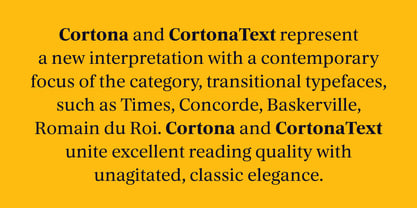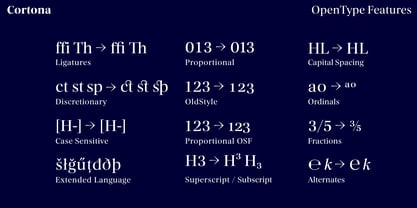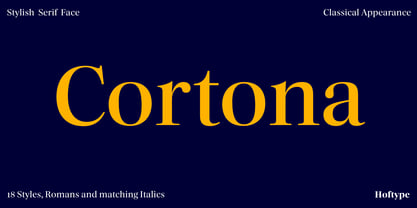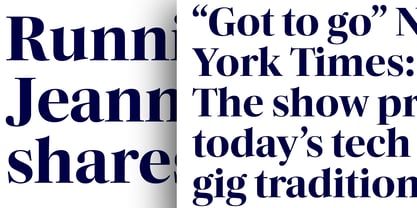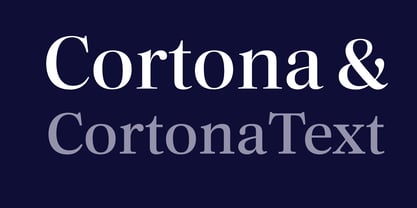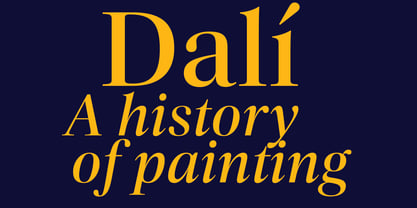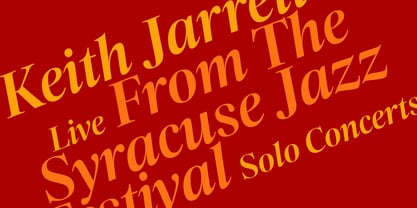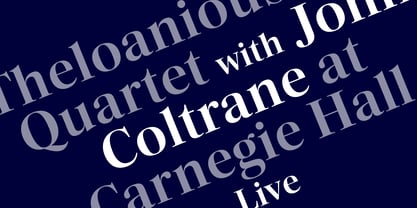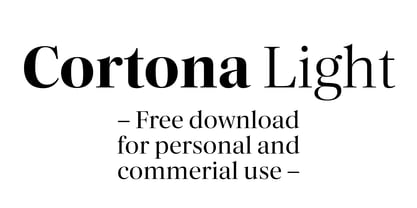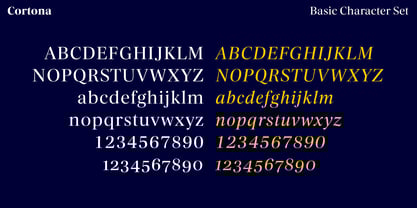
Cortona
by Hoftype
The Cortona Font Family was designed by Dieter Hofrichter and published by Hoftype. Cortona contains 18 styles and family package options.
The Cortona family represents a new approach to the Category of transitional typefaces as Times, Concorde, Baskerville, Romain du Roi, from a contempory focus.  Cortona and Cortona Text unites excellent vintage quality with classic elegance. The Cortona family consists of 18 styles, provides many features which allow its application for ambitious typography.
German designer Dieter Hofrichter started his foundry in 2010. Since then, he has remained focused on developing text fonts that integrate the rich history and tradition of typography with contemporary styles. Based in Munich, his first typeface on MyFonts was Impara, a sans serif with lively stroke ductus and distinct humanistic characteristics that is a representation of linear coolness and classic elegance. Since his debut, he has continued to produce beautiful, high quality serif faces. Capita, one of the foundry’s best sellers, is a self-dominated face with a fresh style that avoids the harshness of many slab serifs. Dieter has also seen success with one of his most recent designs, Mangan, a text face that combines classical rationality with contemporary design. “One of our intentions is to utilize the knowledge of the history of type to create contemporary types,” Dieter says. “Style consciousness and many years of experience in type design are our qualifications for producing functional and usable types of high quality.”